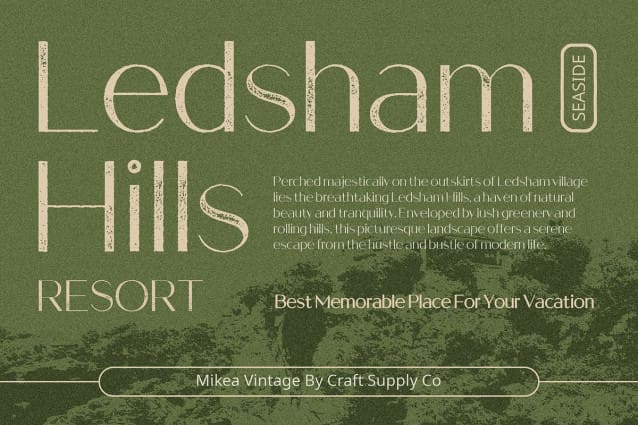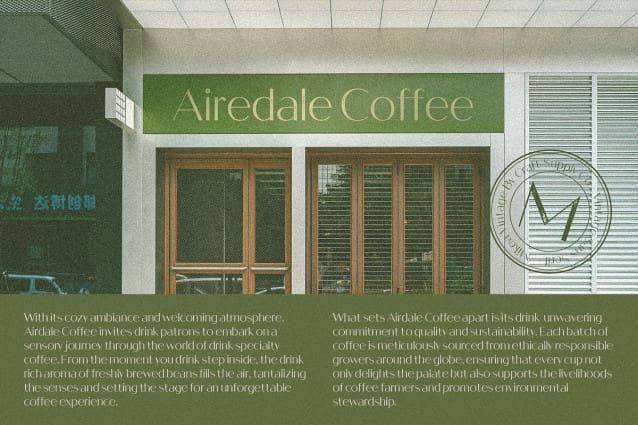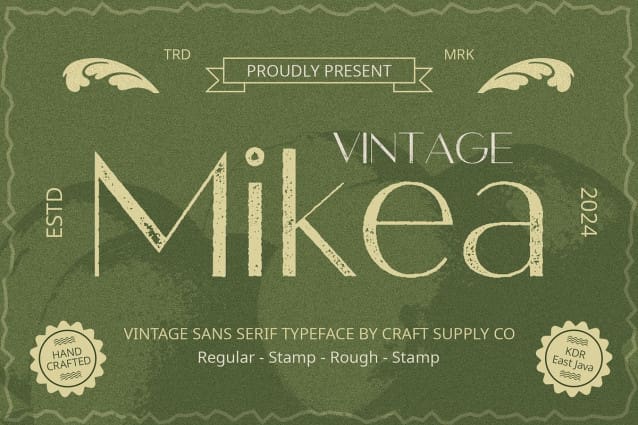
Mikea Vintage Font
Mikea Vintage Font: A Modern Twist on Vintage Typography. High-Contrast Sans Serif Mikea Vintage presents a contemporary display sans serif style with bold contrasts and sleek, modern shapes, setting it apart from traditional typefaces.
Vintage Appeal with Modern Flair By infusing the font with stamp rough grunge effects, MikeaVintage achieves a unique vintage aesthetic while maintaining a modern edge, perfect for capturing attention in design projects.
Versatile and Timeless This font’s versatility knows no bounds, seamlessly blending into various design contexts from branding to editorial layouts. Its timeless appeal ensures longevity in your projects.
Effortless Elegance With Mikea Vintage, achieving an effortlessly elegant look is simple. Its high contrast and modern shapes, combined with vintage-inspired details, create a font that exudes sophistication and charm.
Perfect Blend of Past and Present Mikea Vintage offers the best of both worlds: vintage charm and modern sophistication. Its high-contrast sans serif style, coupled with stamp rough grunge effects, makes it an ideal choice for designers seeking to infuse their projects with timeless elegance and contemporary flair.